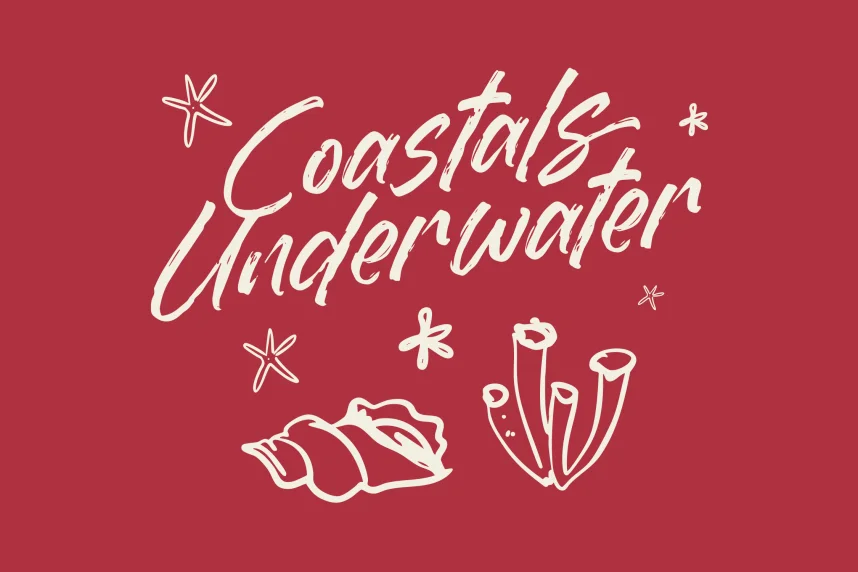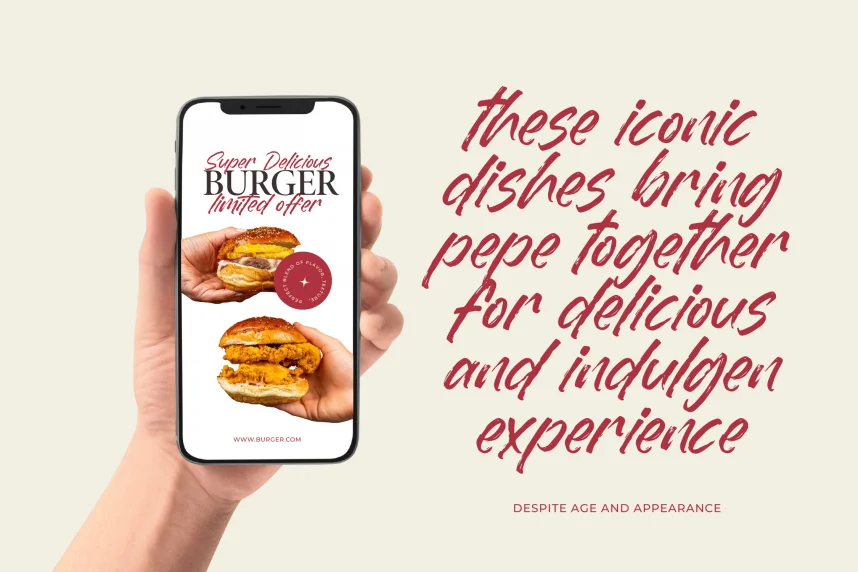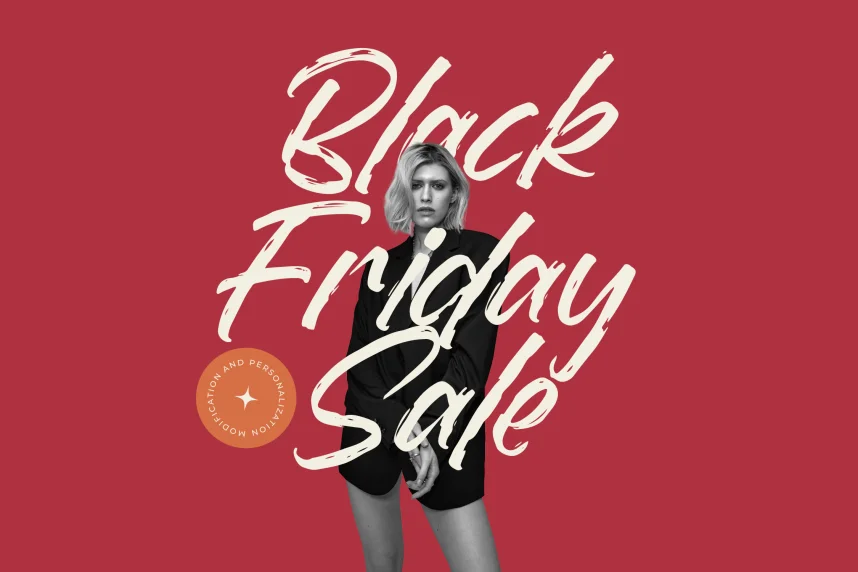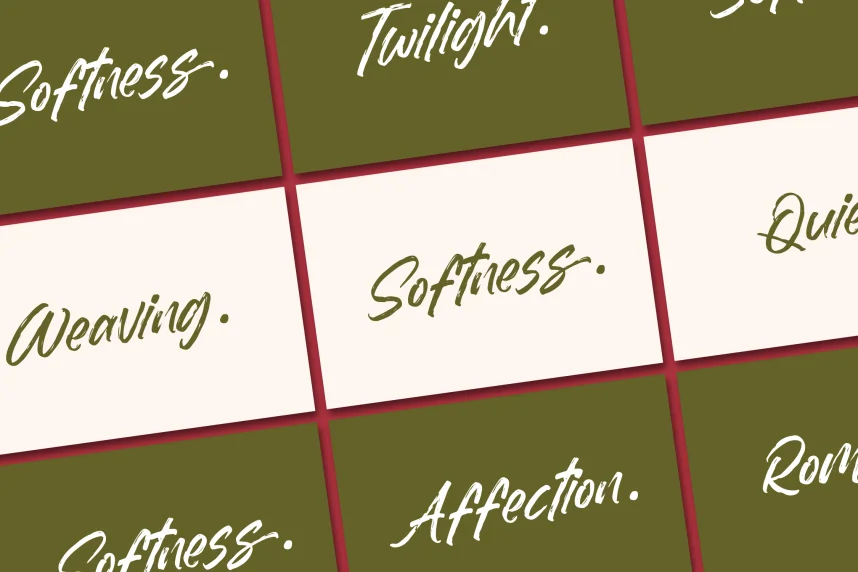
Dummy Catidays Font is a handwritten brush typeface created to solve a common design issue: adding expressive personality without harming readability. Designers often need brush lettering that feels natural while staying legible across branding, social media graphics, and digital content. Dummy Catidays addresses that need with controlled strokes and balanced spacing.
This font belongs to the handwritten brush category. Its letterforms show visible brush pressure, varied stroke width, and slightly uneven curves that mimic real hand movement. The characters maintain consistent baseline alignment, which improves readability compared to rougher brush fonts. Capitals feel expressive without overpowering lowercase text, making it suitable for short phrases and headings.
Dummy Catidays works well for branding, Instagram posts, creative logos, posters, and casual packaging. It also fits lifestyle visuals where a personal tone matters. For pairing, designers usually combine it with a clean sans-serif for body text to maintain balance and clarity.